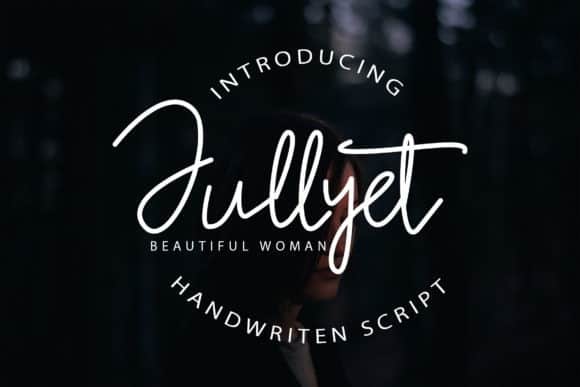
Jullyet Font
Jullyet Handwritten Font is a Beautiful script font carefully created with a touch of romantic. Made from font designer named Handles Creative. This subtle font will look great on any design idea. It will add a playful and romantic touch to any of your projects!
jullyet is suitable for watermarks, photography, packaging products, social media, logos, branding, business cards, wedding designs, design promotions.